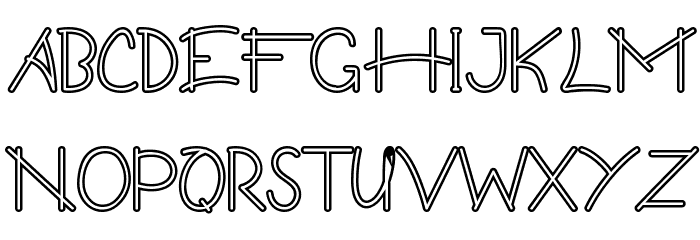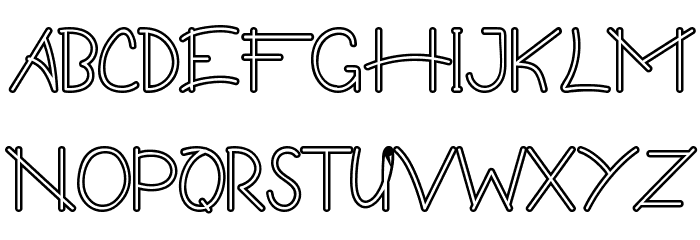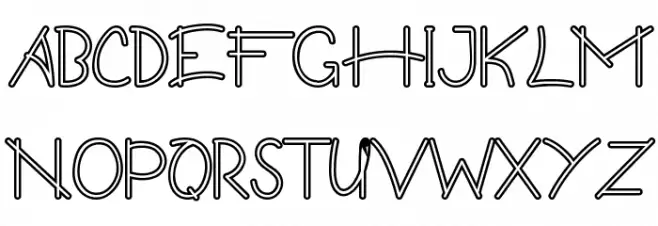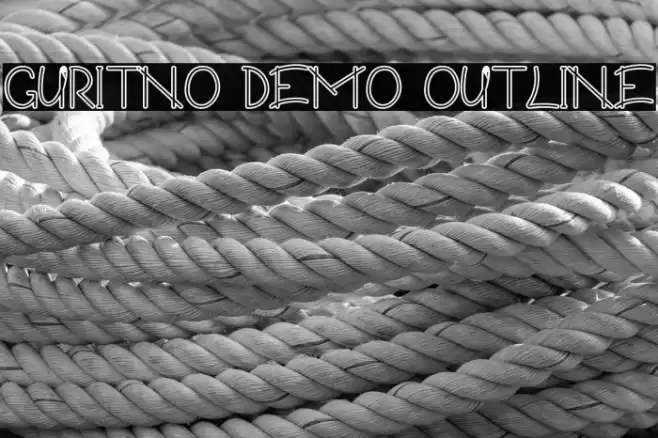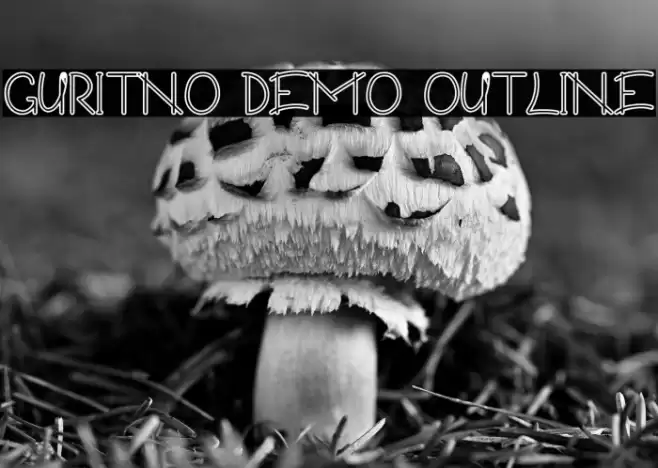
Guritno Demo Outline Font
This font features a unique outline style with a playful and artistic flair. The characters are crafted with a consistent stroke width, creating a harmonious and balanced appearance. The uppercase letters exhibit a creative twist, with some characters incorporating unexpected curves and angles that add a dynamic feel. The overall design is modern and eye-catching, making it suitable for projects that require a touch of creativity and individuality. The spacing between characters is normal, ensuring readability while maintaining the font's distinctive style.
A modern, artistic outline font with playful curves and angles.
- Proposed Projects: Ideal for creative projects such as posters, branding, and artistic designs where a unique and modern look is desired.